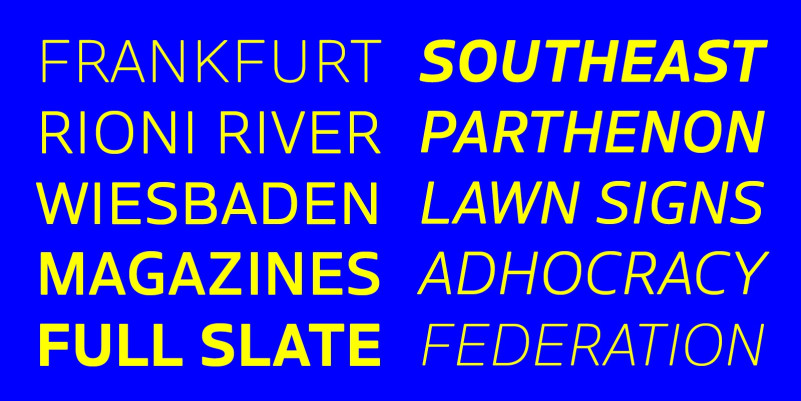
Boreal Font
Looking for a unique, stylish, and fun font for your next project? Boreal Sans Serif Font is a crisp and congenial sans serif font family that has already been put through its paces. Born as a custom face for Canadian airline Air Inuit, Boreal is not only the logo font, but also serves branded text on everything from tiny disclaimers and complex route maps to in-flight magazine headlines. It even looks great on the massive liveries of the airline’s fleet of Boeing 737s. Given this range of uses, the type had to be as versatile and legible as possible, while retaining Air Inuit’s welcoming identity. The fonts also required language support for the local Inuit languages of Northern Quebec, now known as Nunavik. This makes Boreal one of the few commercial typefaces with Latin/Inuktitut character sets that were designed concurrently and meant to be used together.
Boreal’s flexibility is bolstered by five weights, each with italics, and a set of useful dingbats, including circled index numbers, arrows, and basic geometric shapes. Two stylistic alternates stand by for a more casual tone: a single-story ‘a’ with an upright italic construction, and a single-story ‘g’. Backed by practical experience, Boreal offers clean, approachable type for any corporate or editorial use, and its clarity and openness are also ideal for UI design and wayfinding. With Boreal, you always know where you’re going.